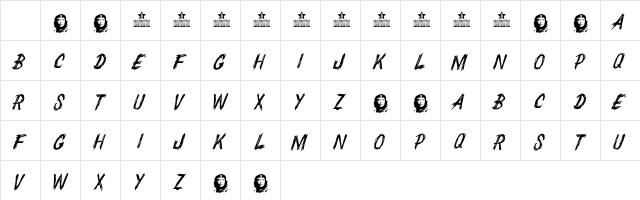
Complete CHEDELPAREDON PERSONAL USE Regular glyph index. Displaying only characters natively supported by CHEDELPAREDON PERSONAL USE Regular font.
CHEDELPAREDON PERSONAL USE is a composed and adaptable typeface that performs quietly and consistently across a wide range of design contexts.